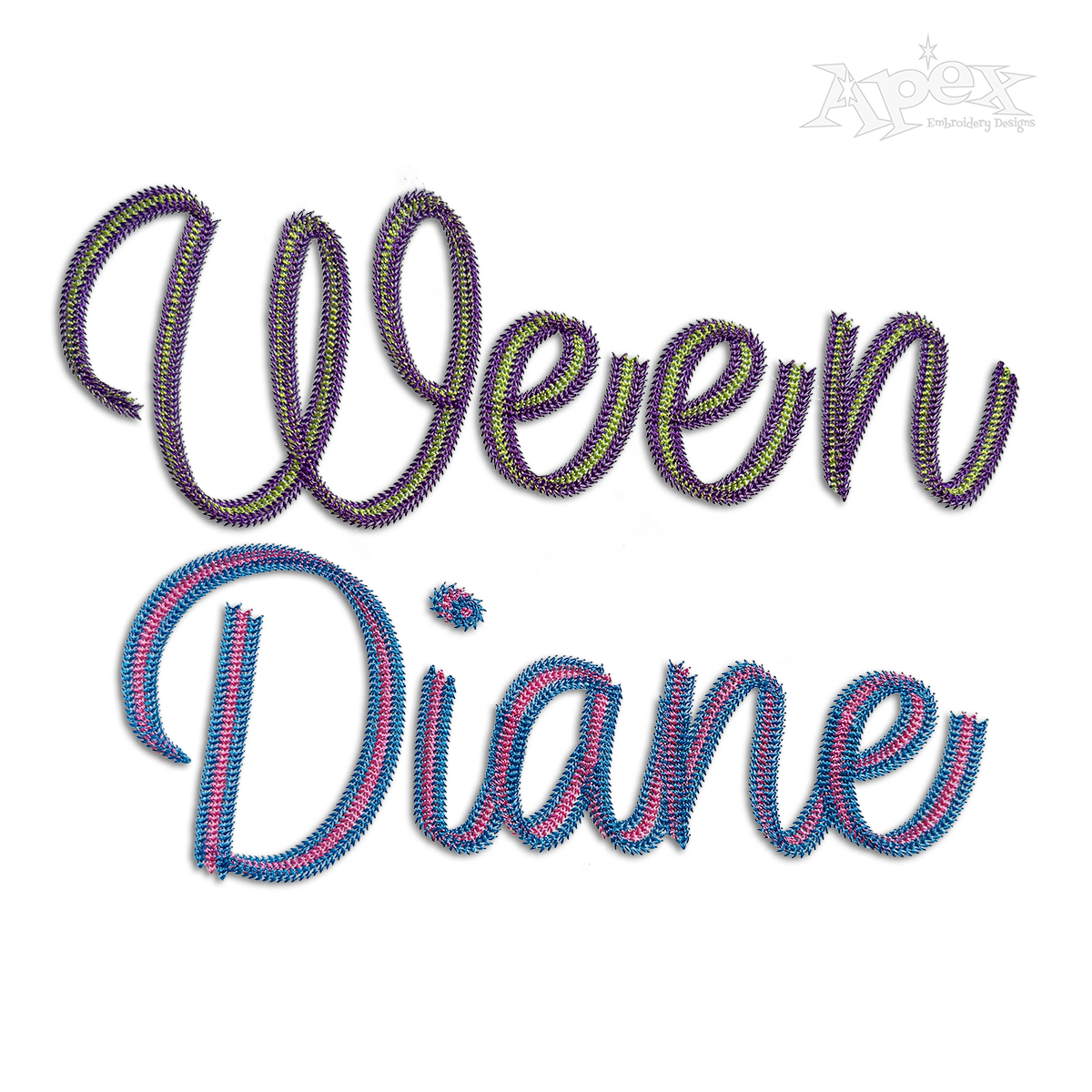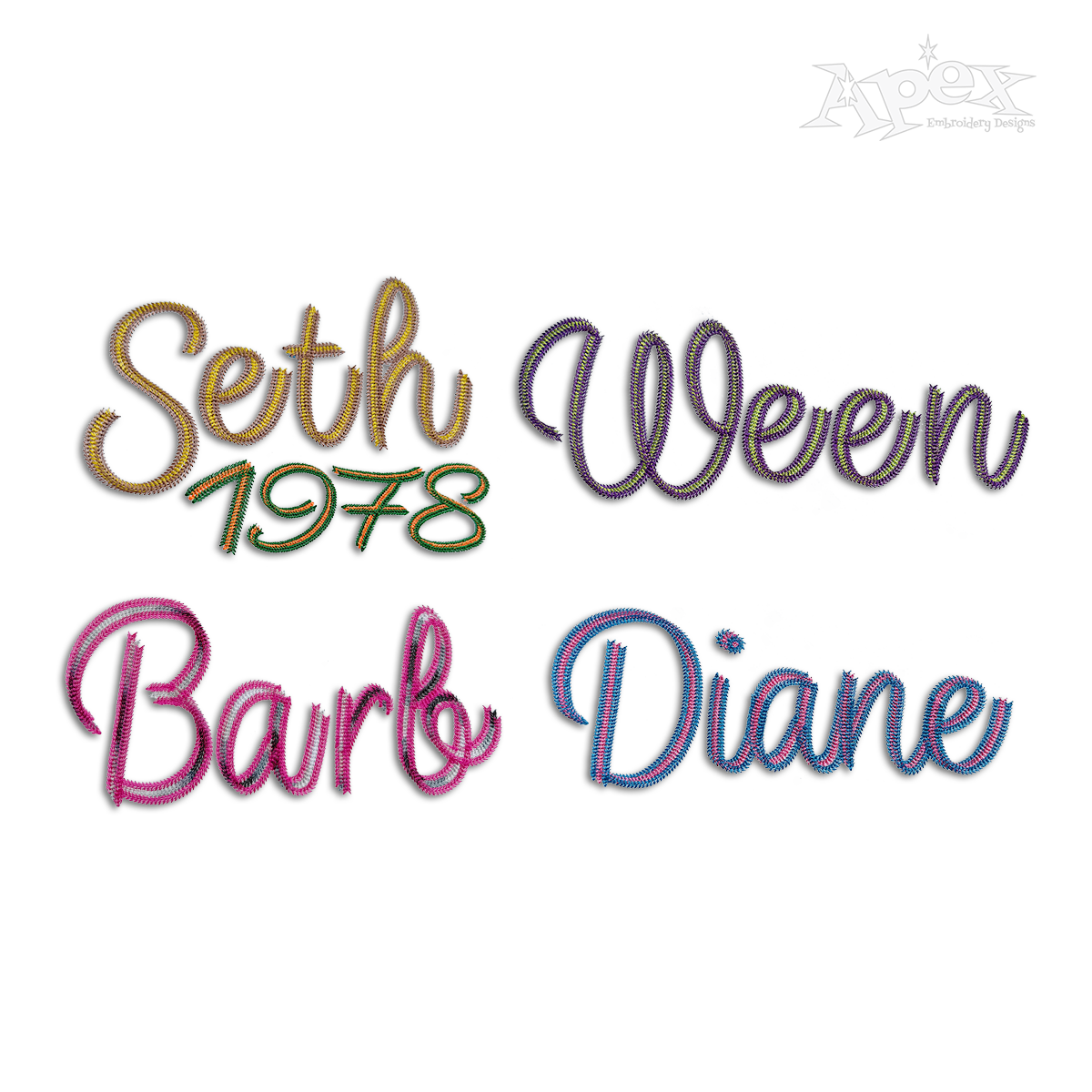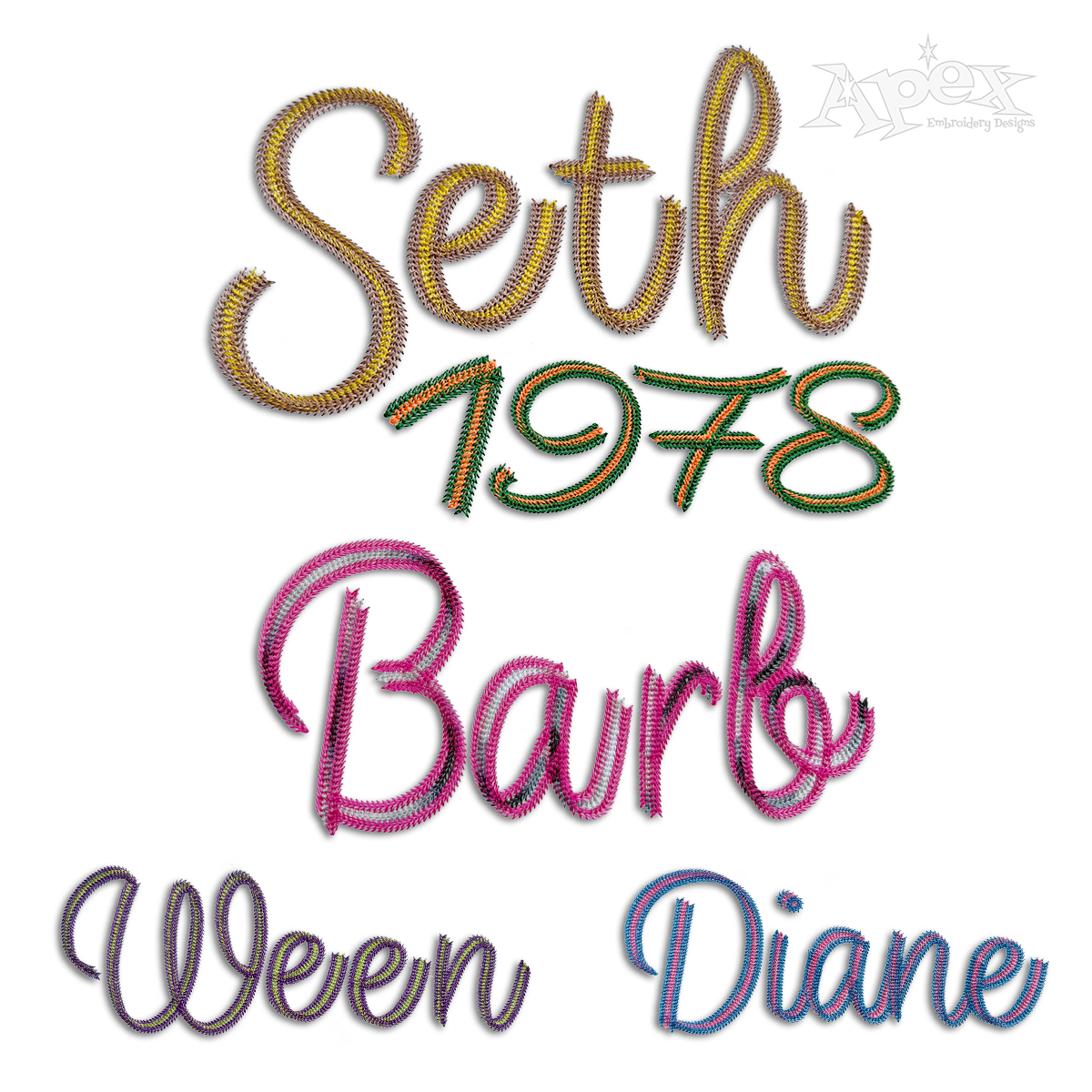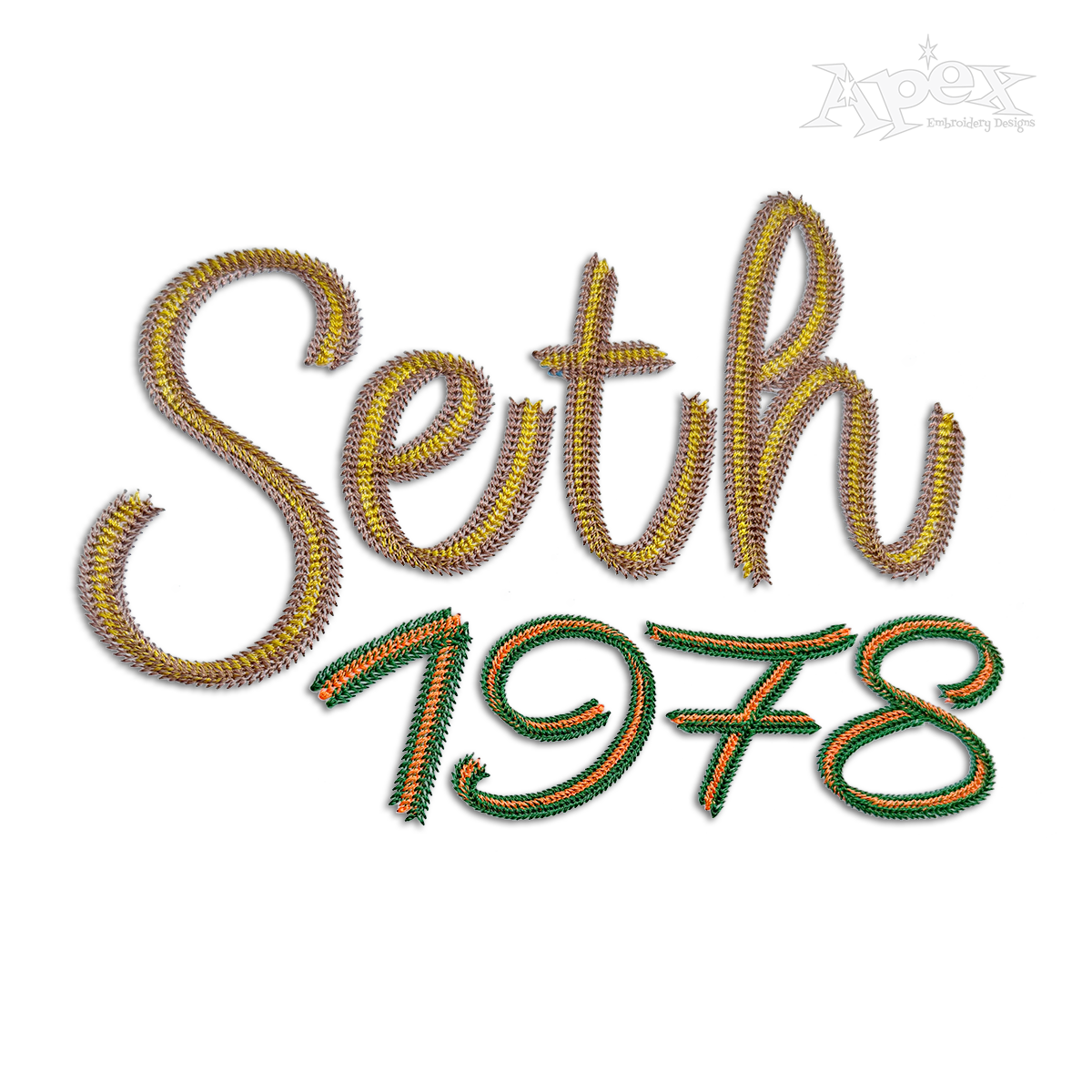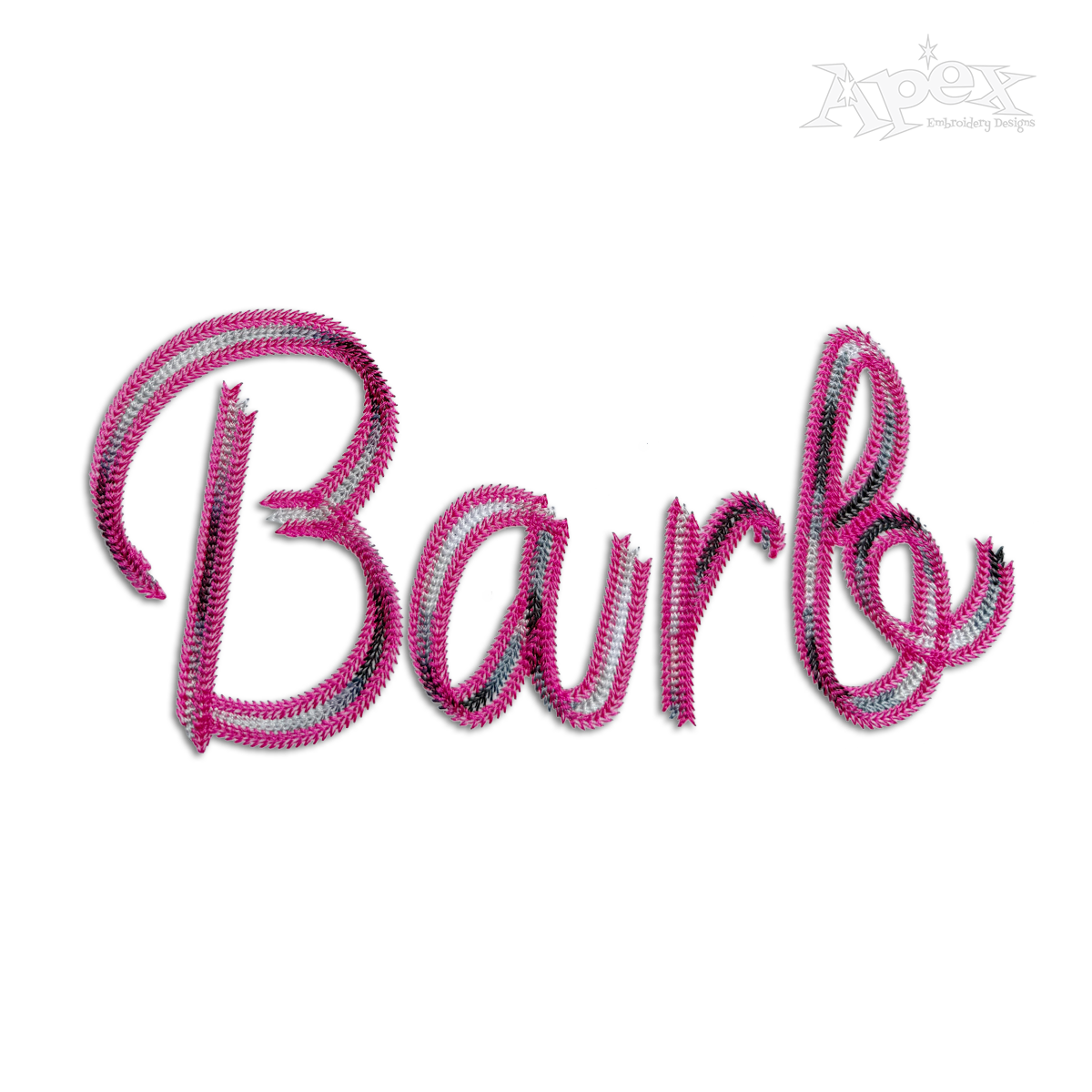
Triple Braid Warren Embroidery Font
There is a quiet, storied majesty in the rhythm of interwoven cords, reminiscent of vintage varsity pennants, heritage maritime ropework, and master equestrian leathercraft. When digitizing the Triple Braid Warren Embroidery Font, our artisan vision was to translate the dimensional charm of traditional chain-work braiding into crisp machine embroidery. Each letterform is an intricate architectural dance of parallel paths that twist and overlap with lifelike depth. Configured for layered two-color and three-color stacked combinations, the design invites thread to build tangible dimension, transforming simple fabric into personalized bespoke heirlooms.
Digitized with meticulous push-and-pull compensation across three distinct proportions, this collection offers complete design freedom for small personal accents up to bold statement monograms. The stacked layers allow you to stitch in coordinating two-tone harmonies or high-contrast three-color palettes.
- 52 Alphabet Letters: Complete suite of uppercase and lowercase letterforms
- 10 Numeric Glyphs: Full numeral sequence (0–9) matching the braided styling
- Layering Versatility: Independent color stops optimized for both 2-color and 3-color stacked sequences
- 3 Proportional Sizes: 1-inch, 2-inch, and 3-inch heights (measured per letter scale)
Project Ideas for Triple Braid Warren Embroidery Font
The braided motif carries a versatile identity that shifts effortlessly between nautical coastal elegance, collegiate heritage, and equestrian luxury:
- Linen Cocktail & Dinner Napkins: Stitch crisp two-color initials in navy and flaxen gold to anchor luxury table linens for bespoke entertaining.
- Bespoke Boating Totes & Canvas Duffels: Render family names or single-letter monograms in bold three-color thread on heavyweight canvas for timeless personalized gifting.
- Heritage Bedding & Pillow Shams: Frame the master suite with 3-inch center monograms stitched tone-on-tone on crisp percale or hemstitched linen shams.
- Vintage Varsity Fleece & Outerwear: Channel traditional collegiate spirit across custom crewnecks, letterman jackets, and bomber pockets using high-contrast school palettes.
- Tailored Bridal & Loungewear Keepsakes: Monogram bridal party robes or bespoke pajamas with delicate 1-inch initials using soft metallic or spun-silk thread tones.
Because the braided letterforms possess pronounced visual texture and graphic movement, strategic placement allows the interlocking ribbons to command attention without overwhelming the garment:
- Corner Diagonal: Set on a 45-degree angle approximately 1.5 to 2 inches from mitered corners on hemstitched napkins and decorative placemats.
- Center Chest: Position the 3-inch scale prominently on collegiate sweatshirts, heavy cardigans, or the center front of spa robes.
- Cuff & Hem Accents: Utilize the 1-inch scale along dress shirt cuffs, pajama lapels, or polo shirt hems for subtle, equestrian-inspired detailing.
- Geometric Border Framing: Center initials within quilted medallions on heirloom throws or centered horizontally across decorative accent pillow bands.
Triple Braid Warren Embroidery Font Craft & Letterform Details
Digitizing a multi-strand braided font requires an uncompromising balance between thread tension, stitch density, and registration. Rather than relying on flat fills with simple outlines, the Triple Braid Warren is mapped with directional satin pathways that mimic the physical tension of twisted cords. Each intersecting strand is programmed with minute stitch-angle shifts, catching the ambient light differently across adjacent curves to create genuine three-dimensional relief on the garment surface.
Special engineering was poured into the stacked color registration. When stitching layered two- and three-color designs, multi-needle and single-needle machines alike can suffer from fabric drift if underlays are poorly structured. We resolved this through targeted edge-walk stabilization and micro-calibrated overlap points, preventing gaps between color transitions without creating dense, bulky needle penetrations. The resulting stitchouts remain remarkably supple in hand, gliding smoothly around fluid lowercase loops and standing proud along strong, architectural uppercase stems.